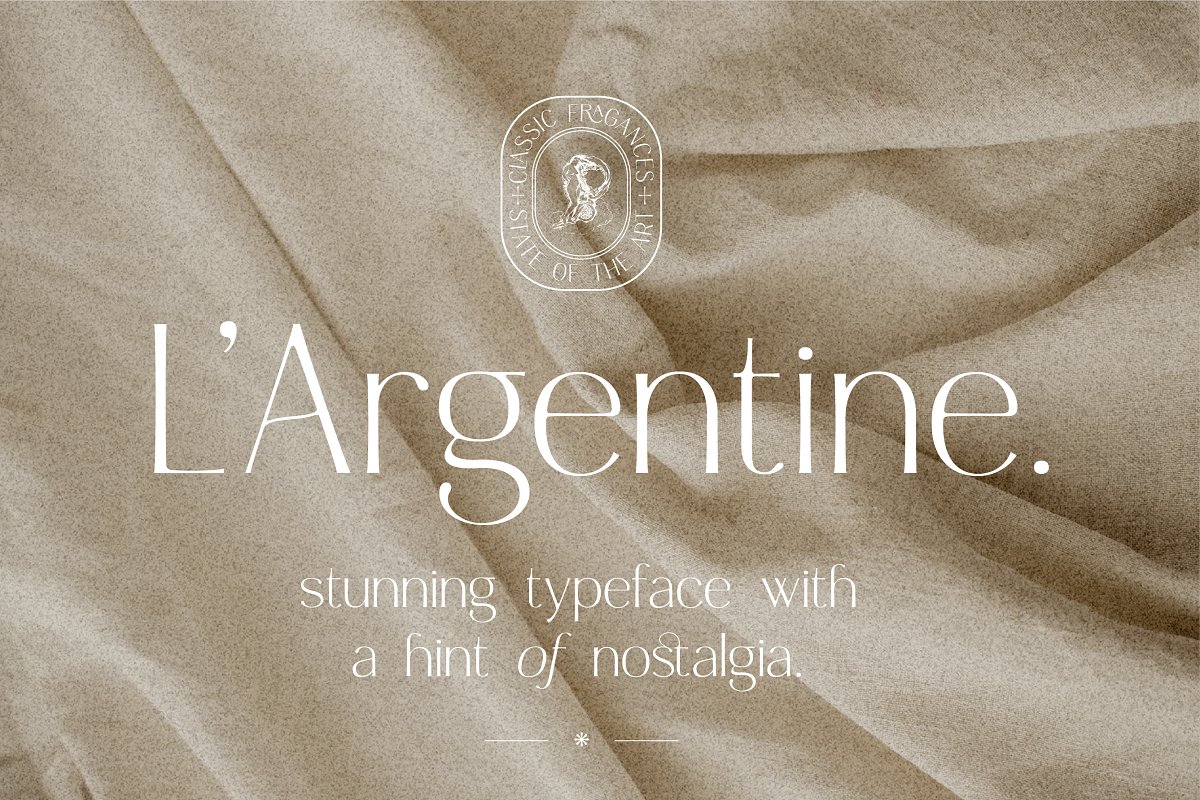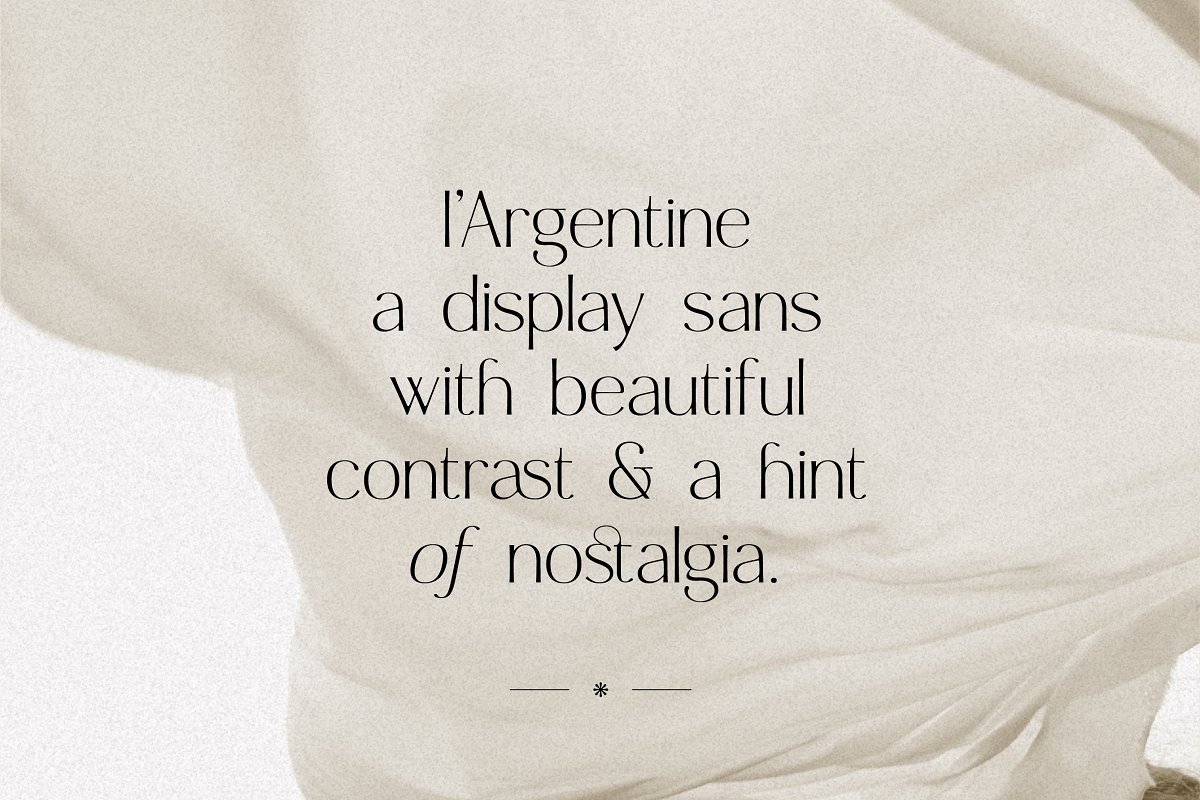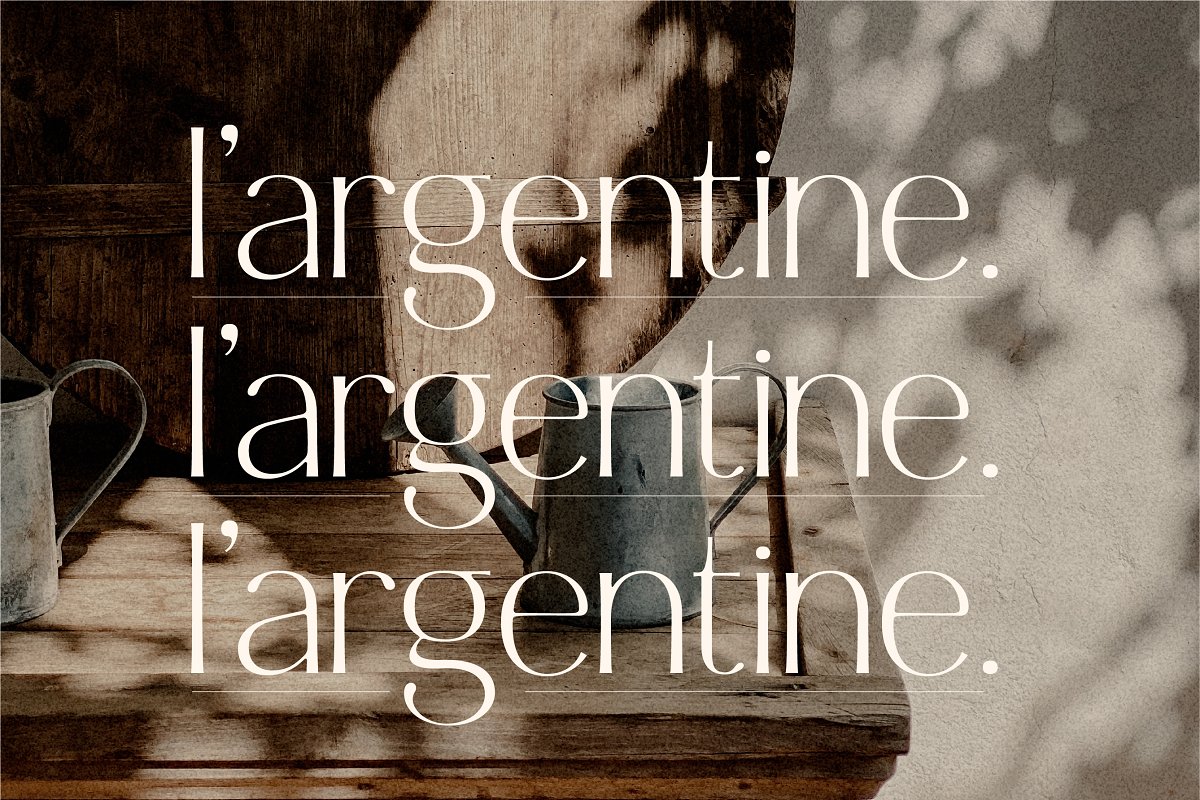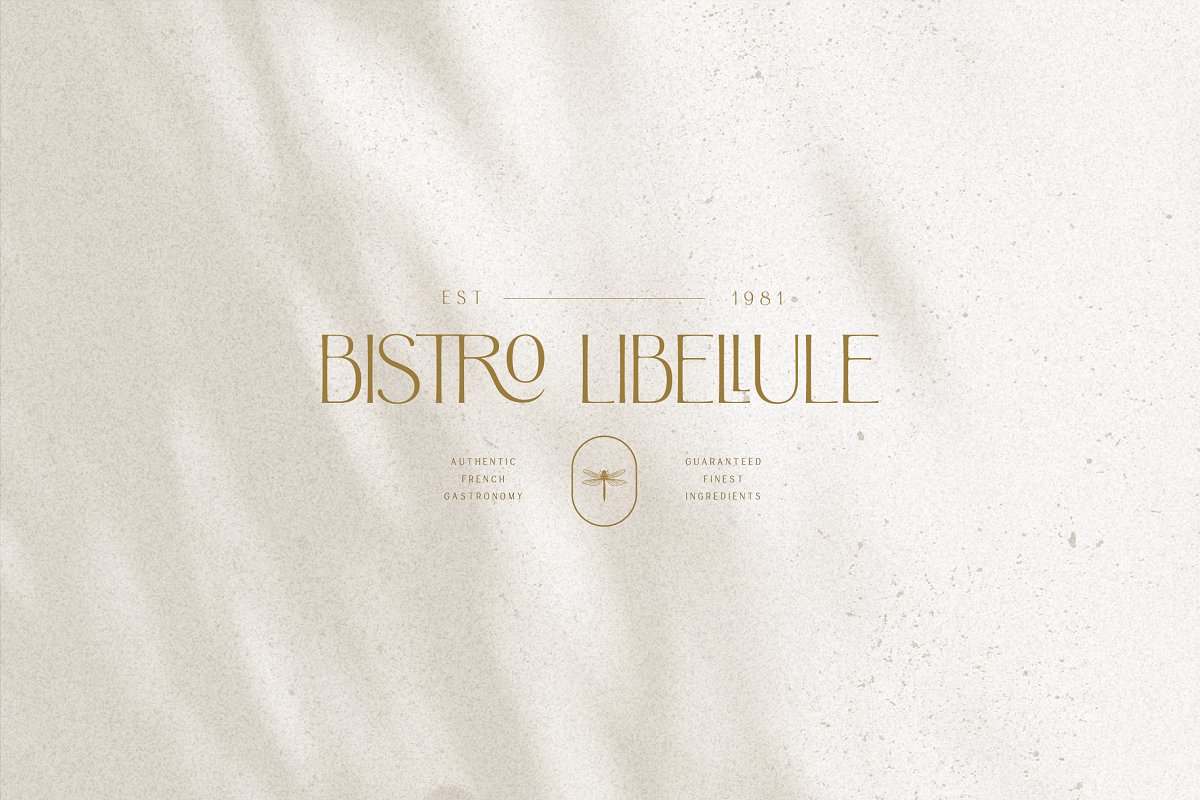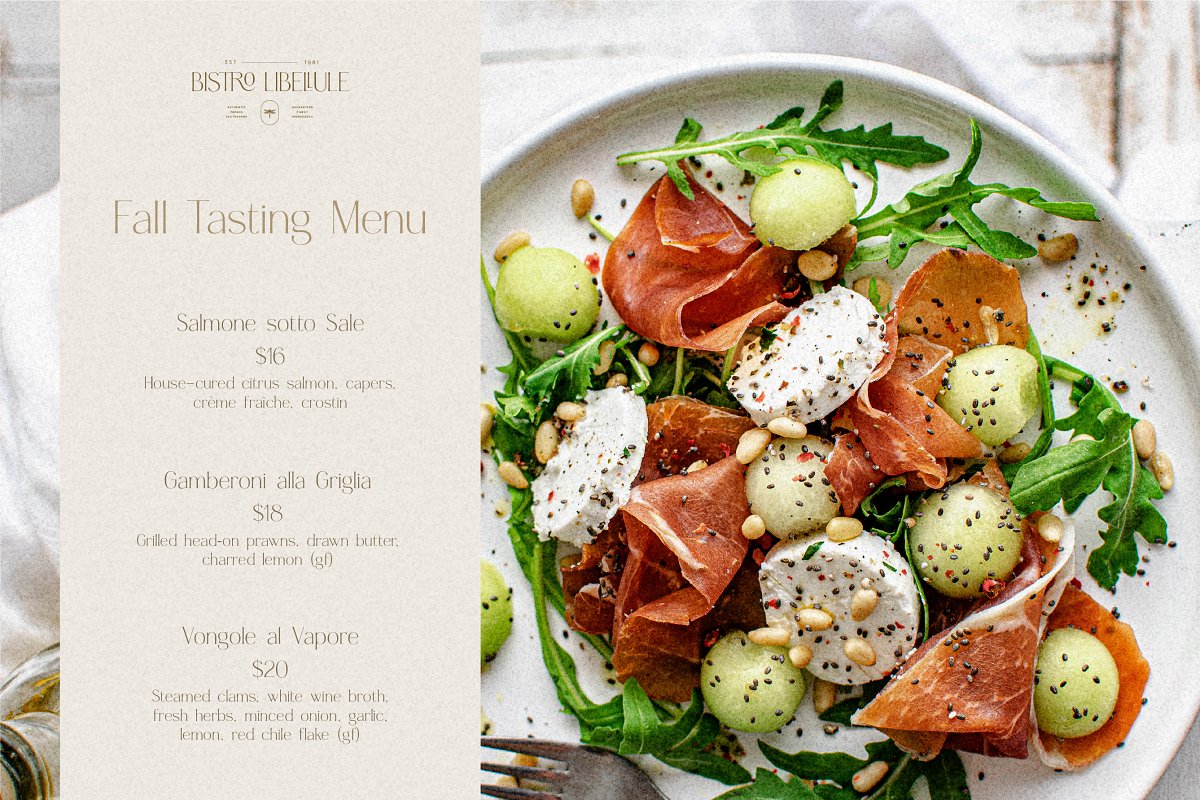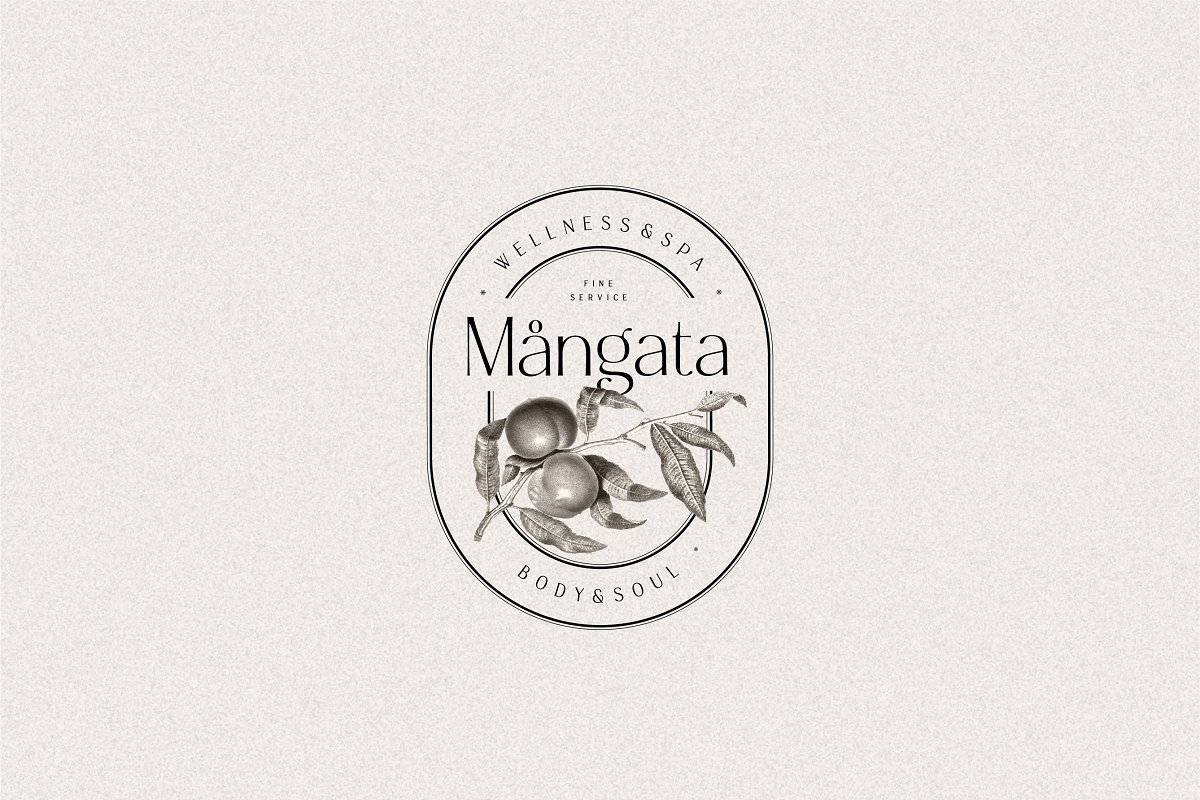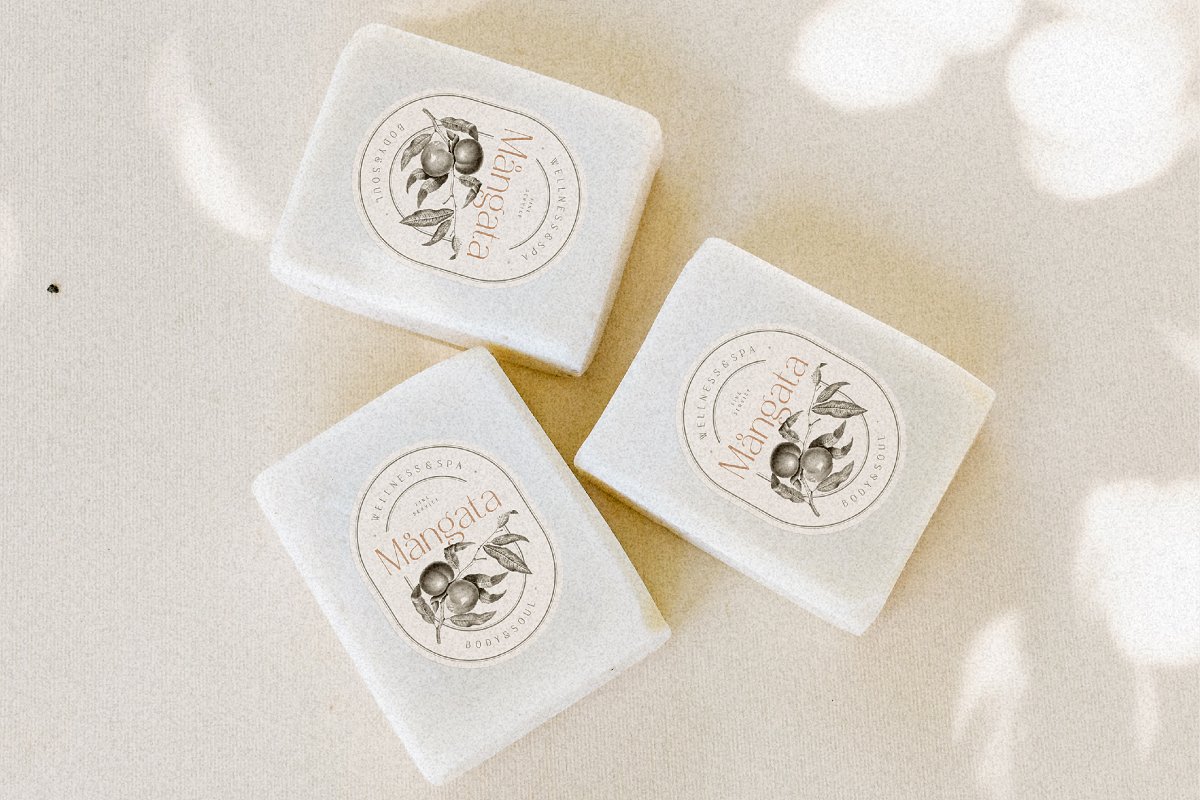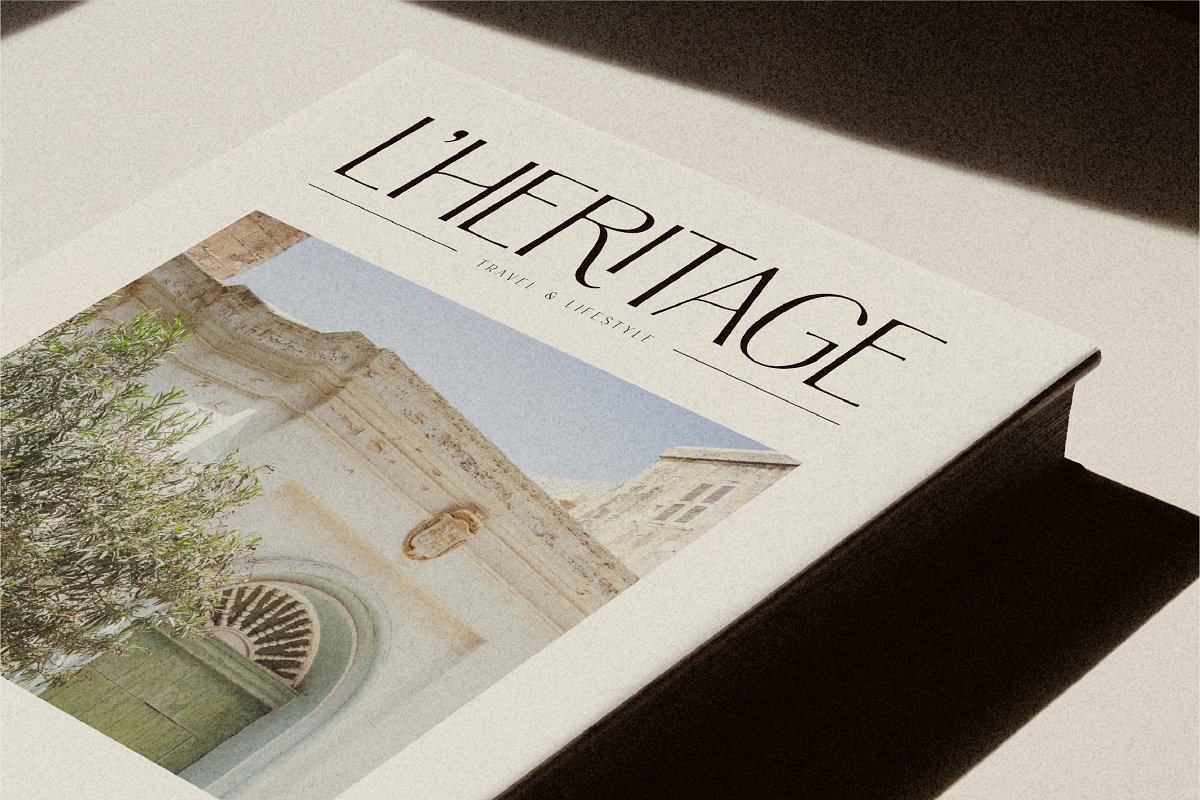
About the Argentine Nostalgic Elegant Sans
🎉Out latest typeface is now live : Aurelius – Feminine Chic Serif https://crmrkt, com/Kxp4JMArgentine – a display sans with beautiful contrast & a hint of nostalgia, , Specially designed for retro, elegant projects, Argentine is perfectly suitable for creating simple, lifestyle design such as logos, packaging, editorial, and more, A SUMMARY OF WHAT’S INCLUDED:HV Argentine Regulart Font (